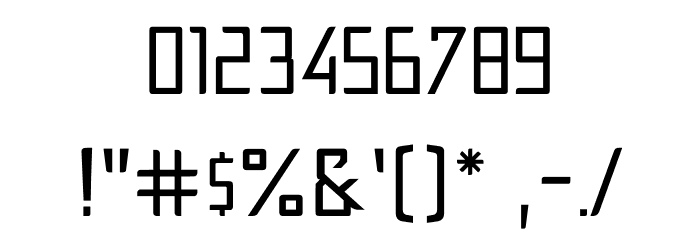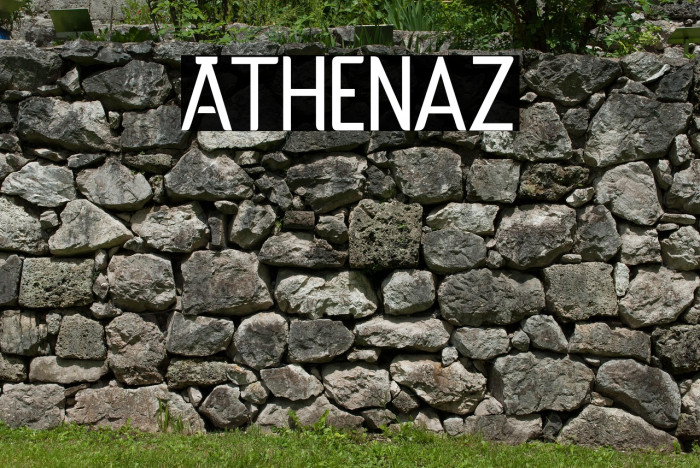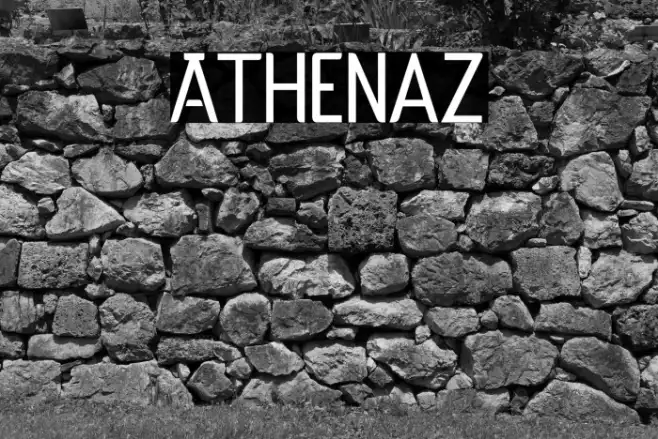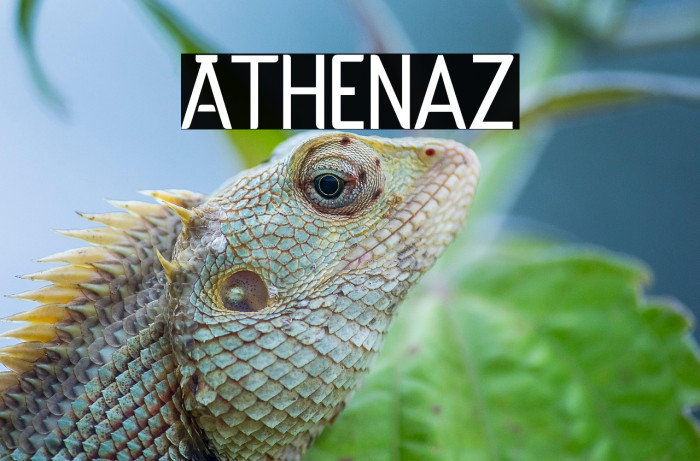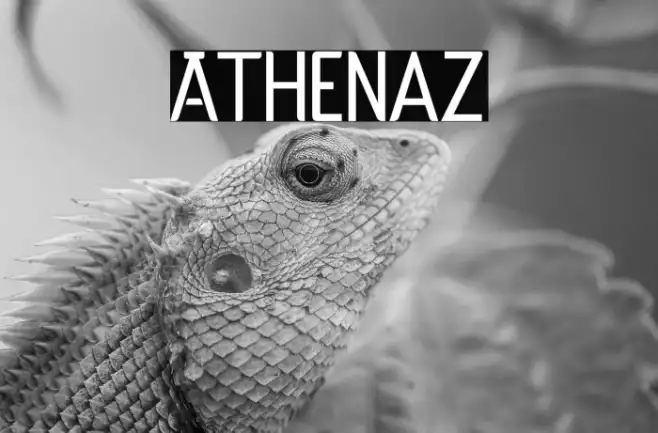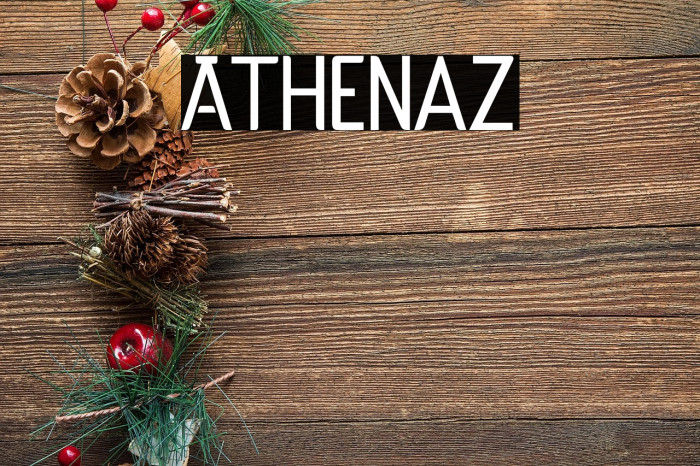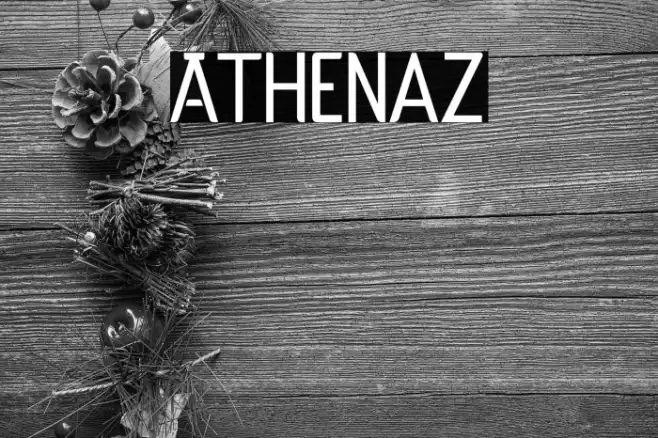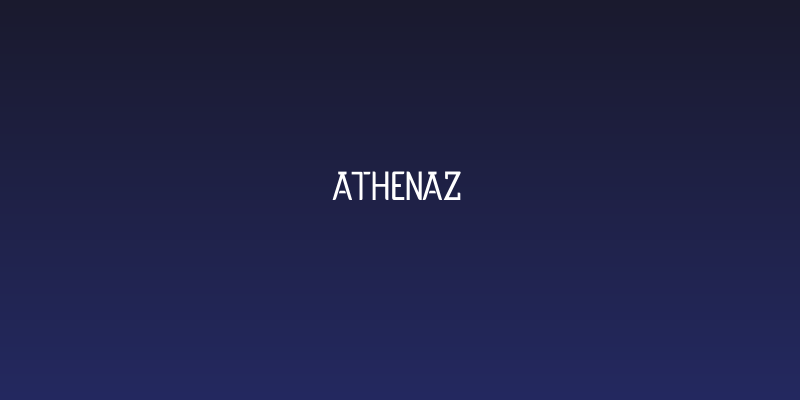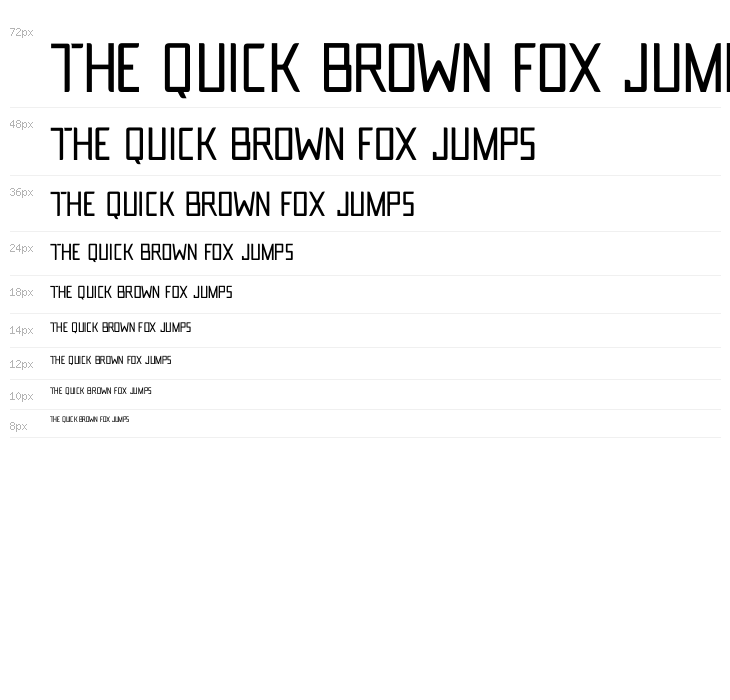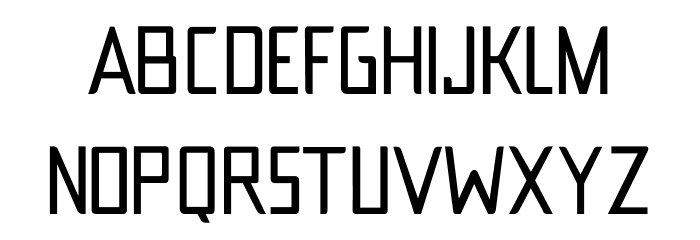
Athenaz Font
Athenaz Description
This font features a geometric and angular design, characterized by sharp edges and a modern aesthetic. The uppercase letters are bold and structured, with a consistent height and width that convey a sense of stability and strength. The lowercase letters maintain the same geometric style, ensuring uniformity across the typeface. Numbers are clear and legible, designed to match the overall angular theme. Special characters are distinct and maintain the same sharp, clean lines, making them easily recognizable. The font's overall appearance is sleek and contemporary, suitable for a variety of design applications.